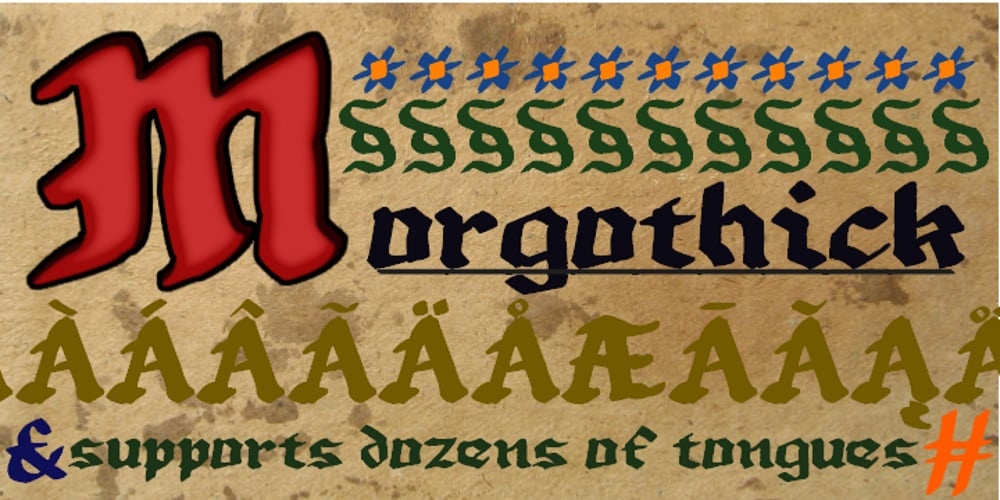
Morgothick Font Family was designed by Heikki Morgan Hämäläinen and published by Morganismi. Morgothick contains 1 styles and family package options. Morgothick is an ugly not-so-decorative blackletter font, hand-drawn like straight from the dark Middle Ages of drunk monks and dim chambers. Most readable, suits for multiple purposes. Morgothick supports West and Central European languages as well as Baltic, Turkish and Romanian.